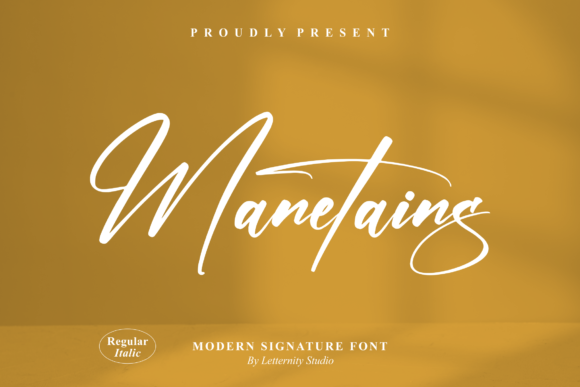
Journey into the realm of exquisite penmanship with Manetains, a font that captures the essence of romance and leaves an indelible mark on your creative endeavors. This meticulously crafted script font, designed by the talented team at Letternity, is a testament to the enduring power of handwritten words.
Manetains's graceful strokes and sweeping curves evoke a sense of elegance and charm that will elevate your projects to new heights. Whether you're pouring your heart out in love letters, crafting heartfelt wedding invitations, or designing enchanting logos, Manetains will lend its timeless beauty to every word you put down.
Unleash your creativity and let your imagination soar with Manetains. Its versatility knows no bounds, making it the perfect choice for a wide range of projects. From branding ventures and photography masterpieces to personalized watermarks and special event designs, Manetains will add a touch of sophistication and flair to any visual concept.
With Manetains, you'll have the power to transform your words into breathtaking works of art. Its PUA encoding ensures effortless access to a treasure trove of glyphs and swashes, empowering you to add intricate details and flourishes that will leave your audience spellbound.
Indulge in the allure of Manetains and unlock the captivating beauty that lies within your creative soul. Let your words dance across the page, carried by the eloquence of this exquisite script font. Manetains is more than just a font; it's an invitation to embark on a journey of artistic expression and leave an imprint on the hearts of your readers.